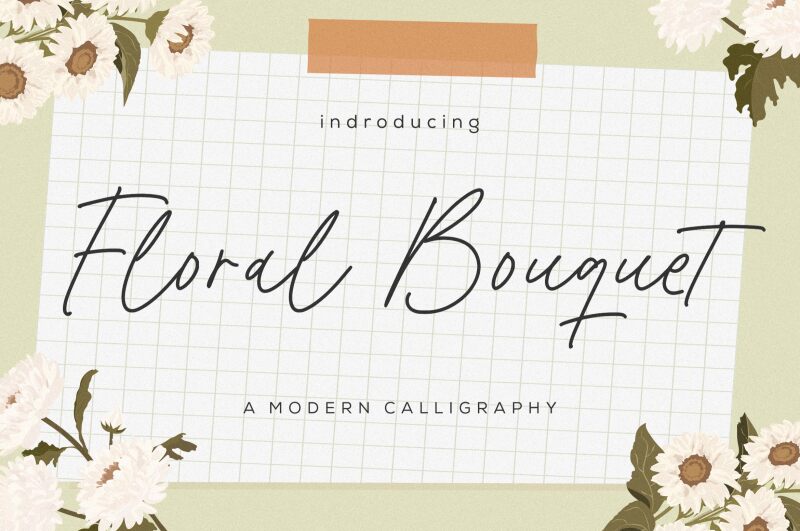
Floral Bouquet
Floral Bouquet font, designed by Balpirick Studio, is a graceful light handwritten style font with an artistic and expressive flair. Its design is all about subtle elegance, which promotes natural flow and casual sophistication. There’s inviting warmth in its characters; an added bonus to the overall handwritten appearance that helps create a new gorgeous typeface.
A free elegant handwritten font, Floral Bouquet can be used in beauty product branding, cosmetics packaging ideas, skincare advertising campaigns, and fashion logo designs. Use it for special wedding invitations or eye-catching magazine designs. You can also put it into use on social media posts or billboards and poster ads.